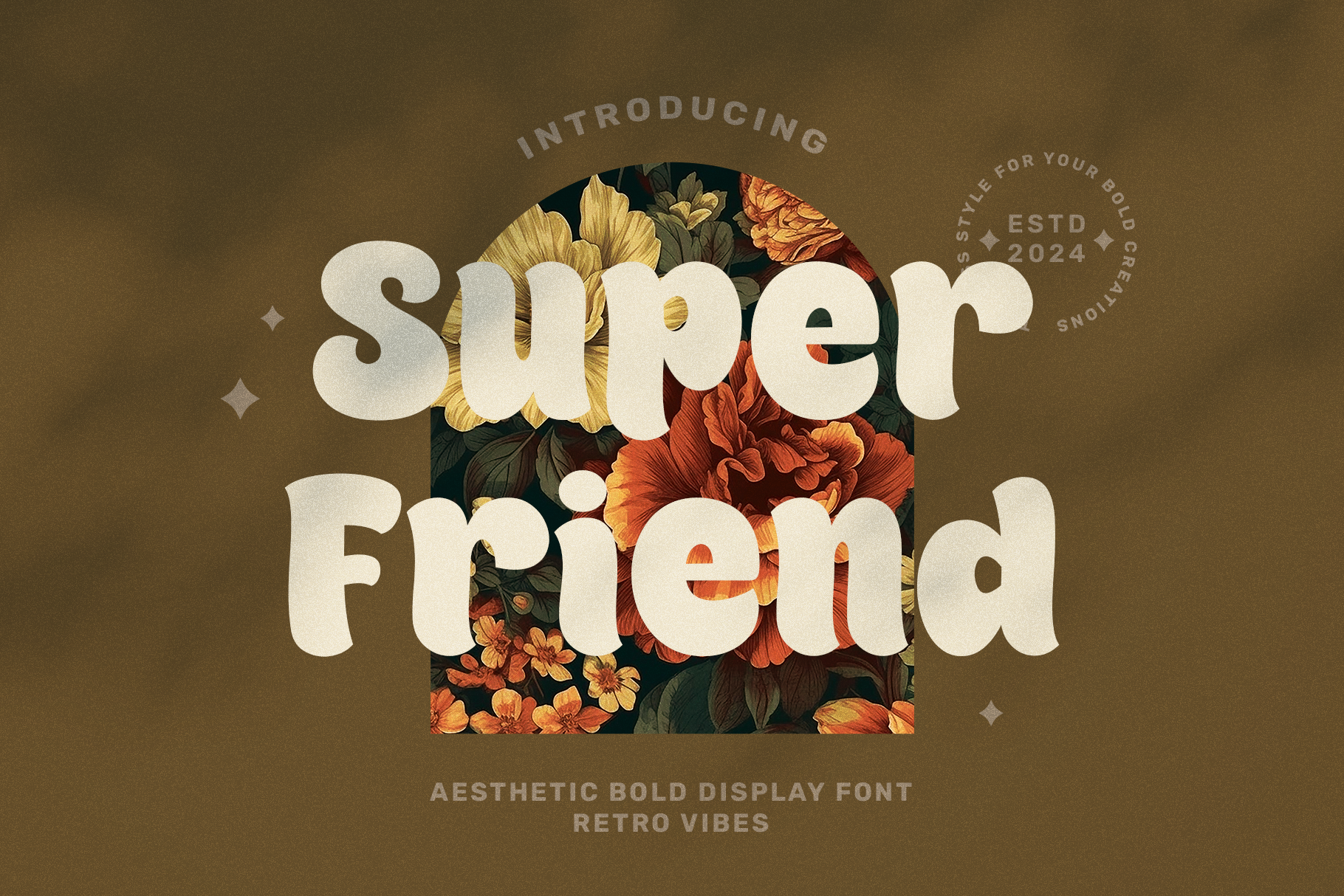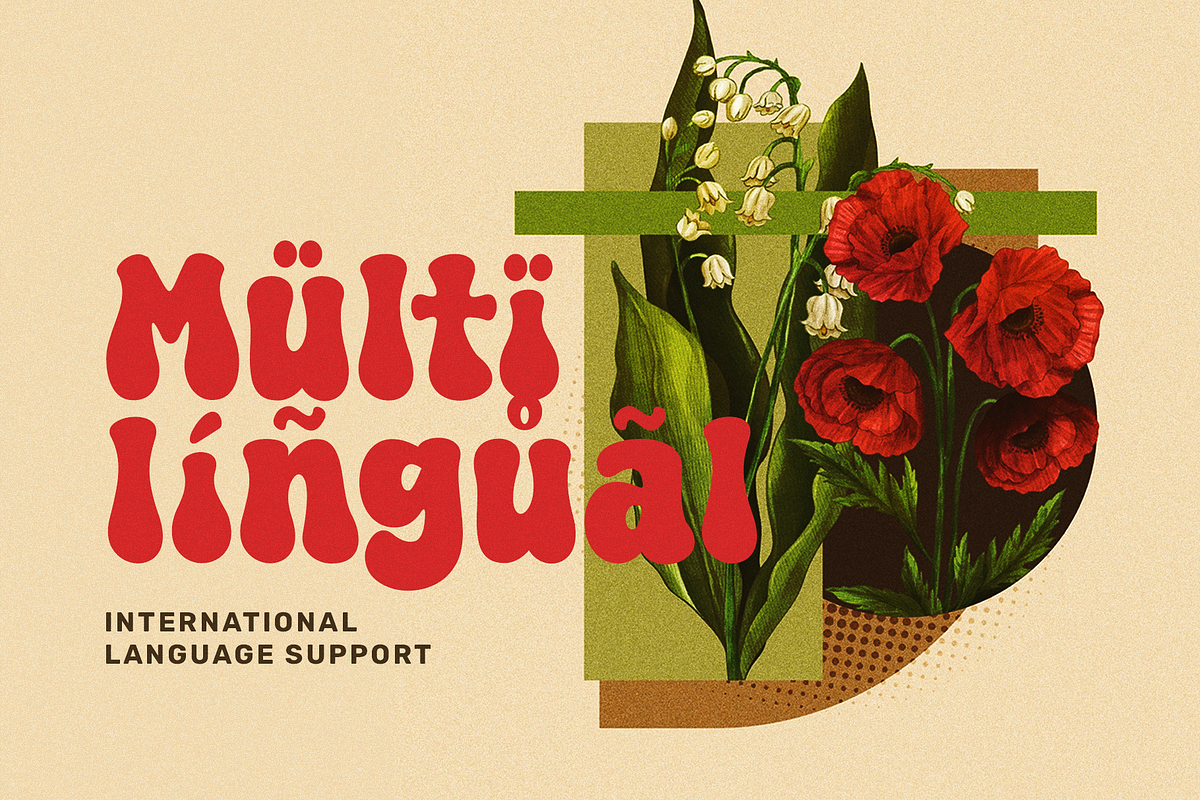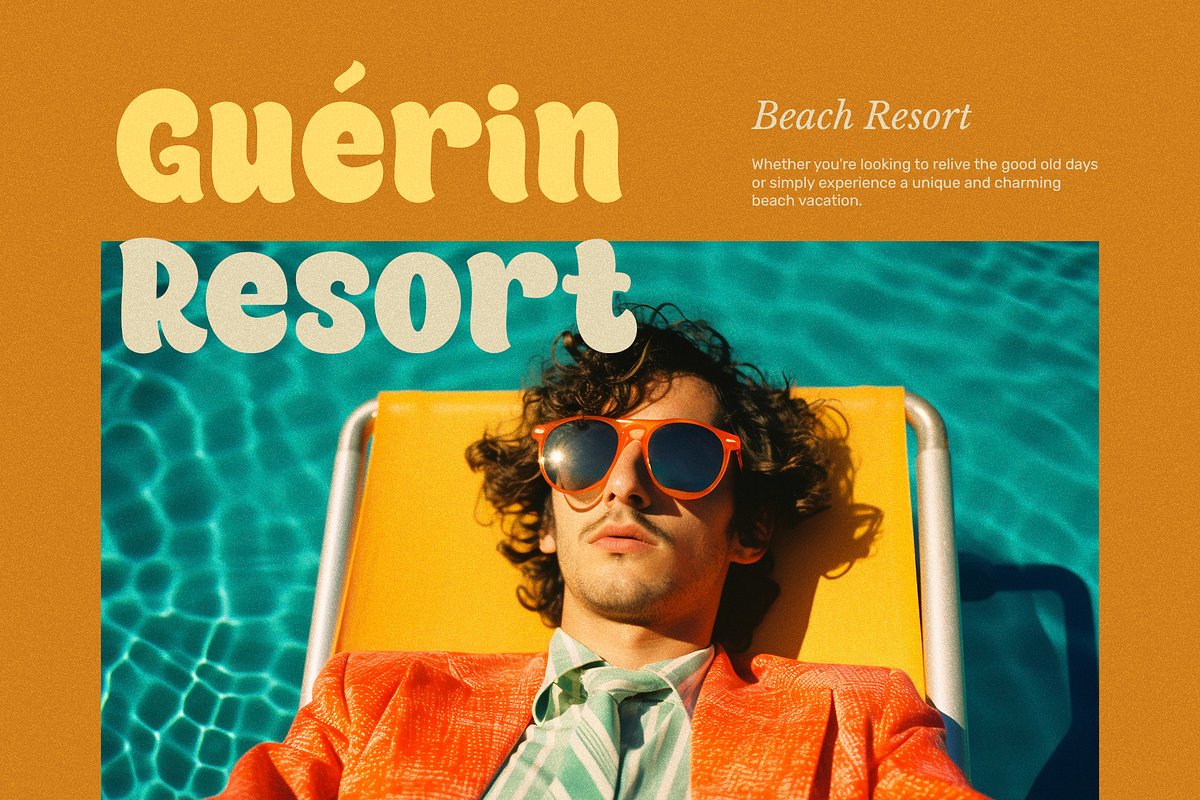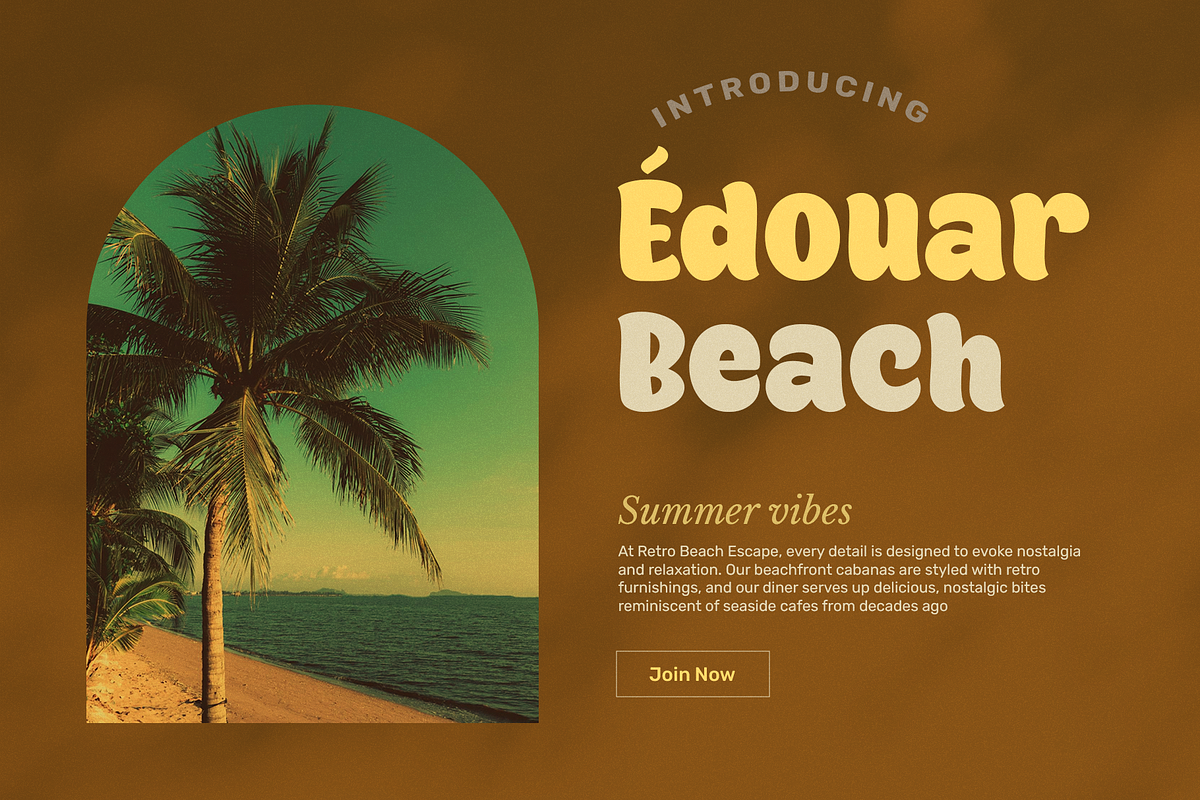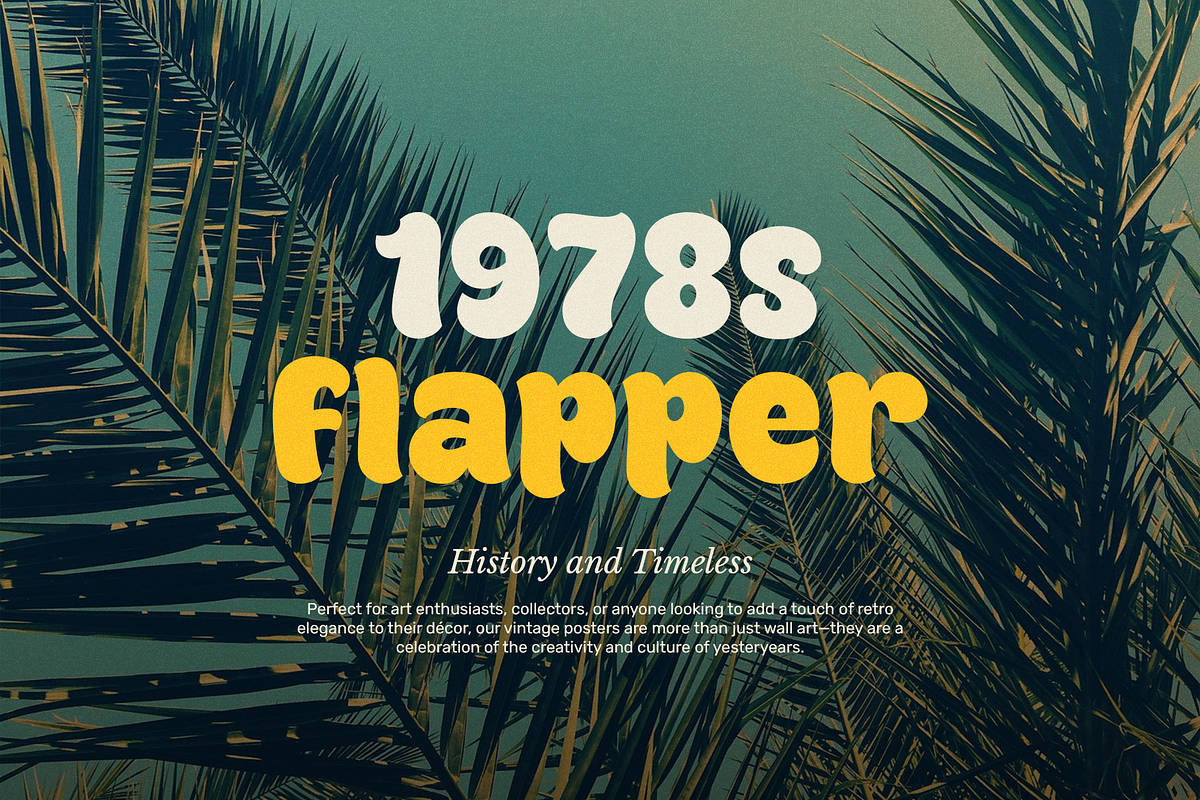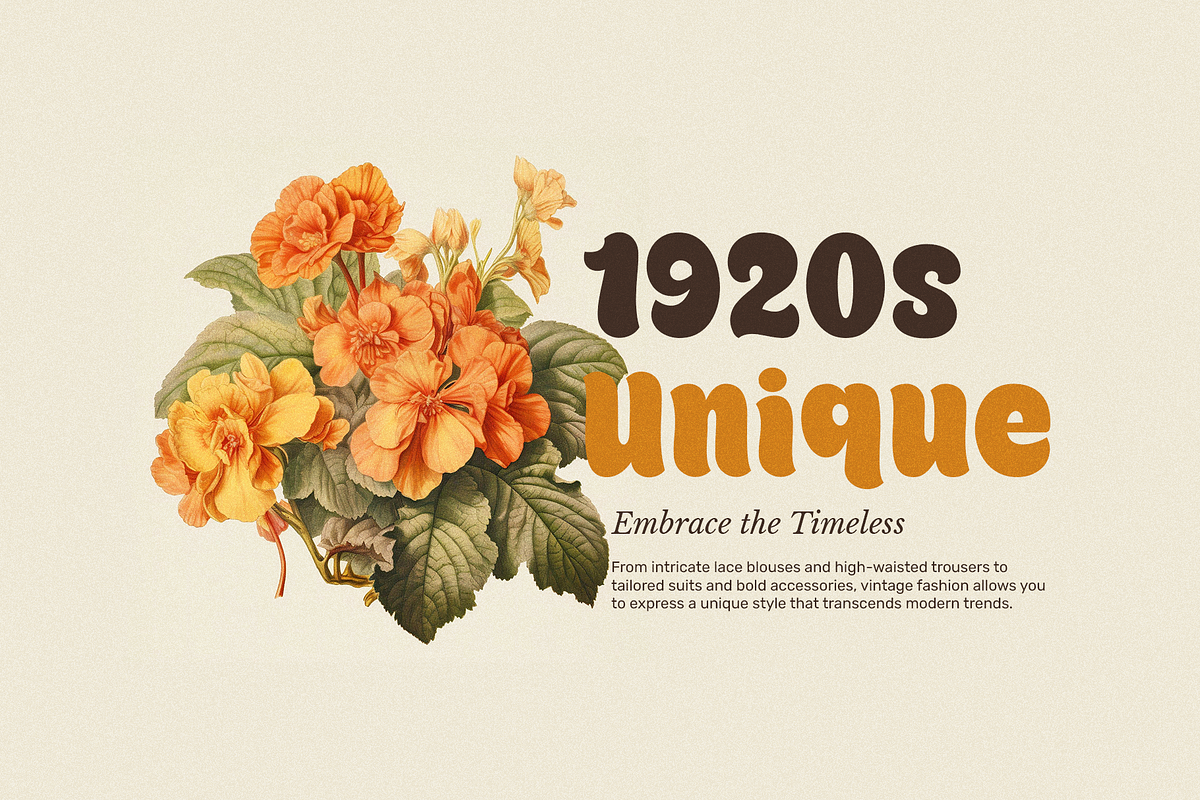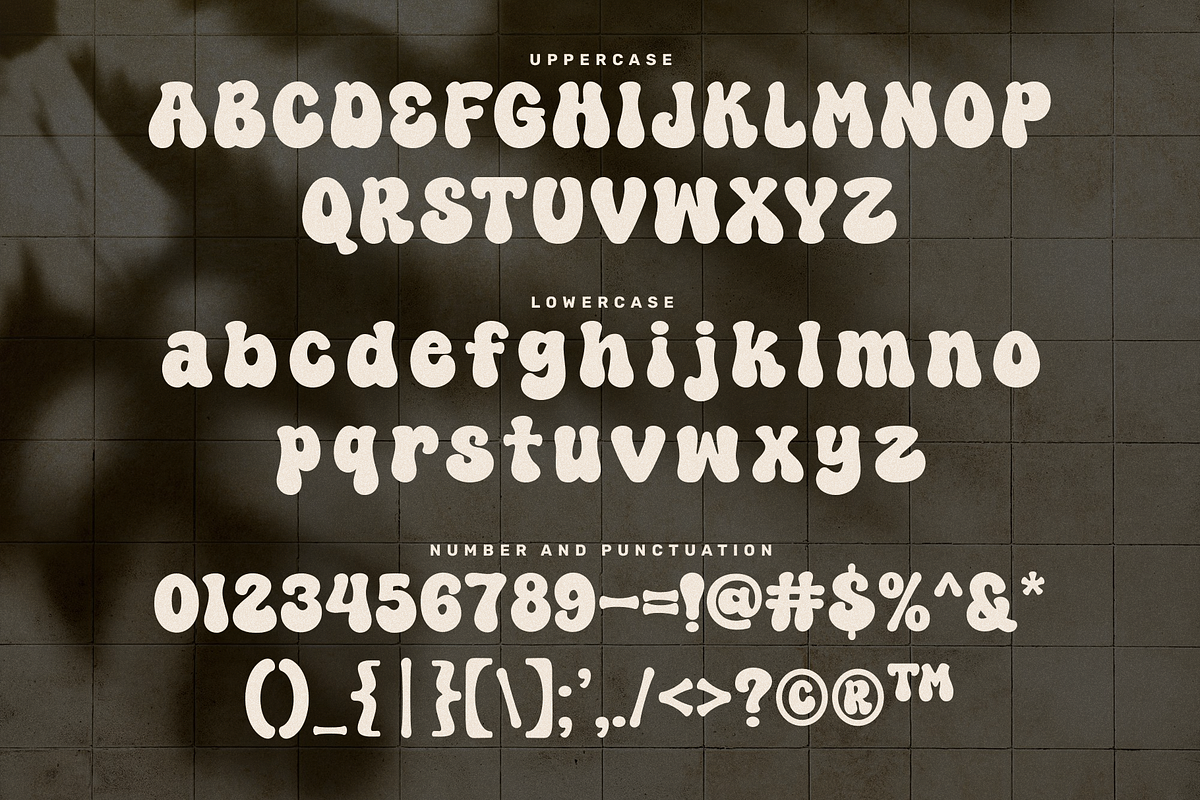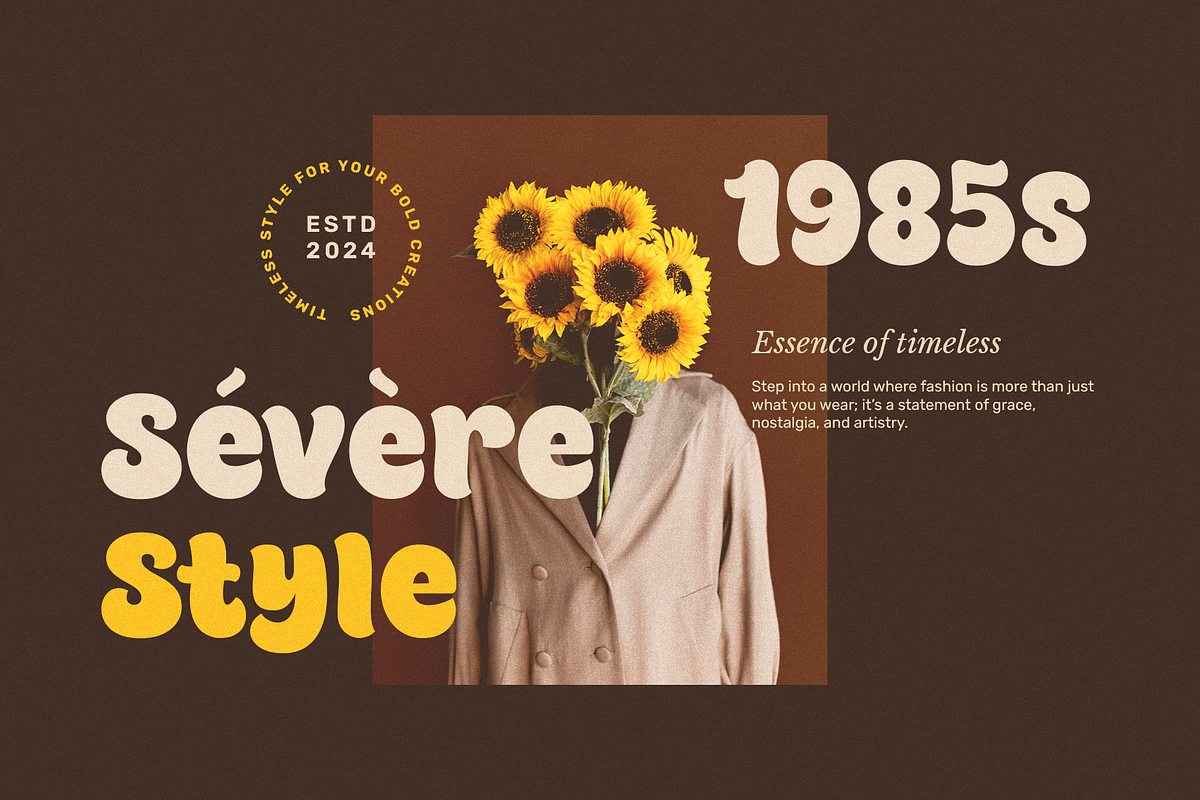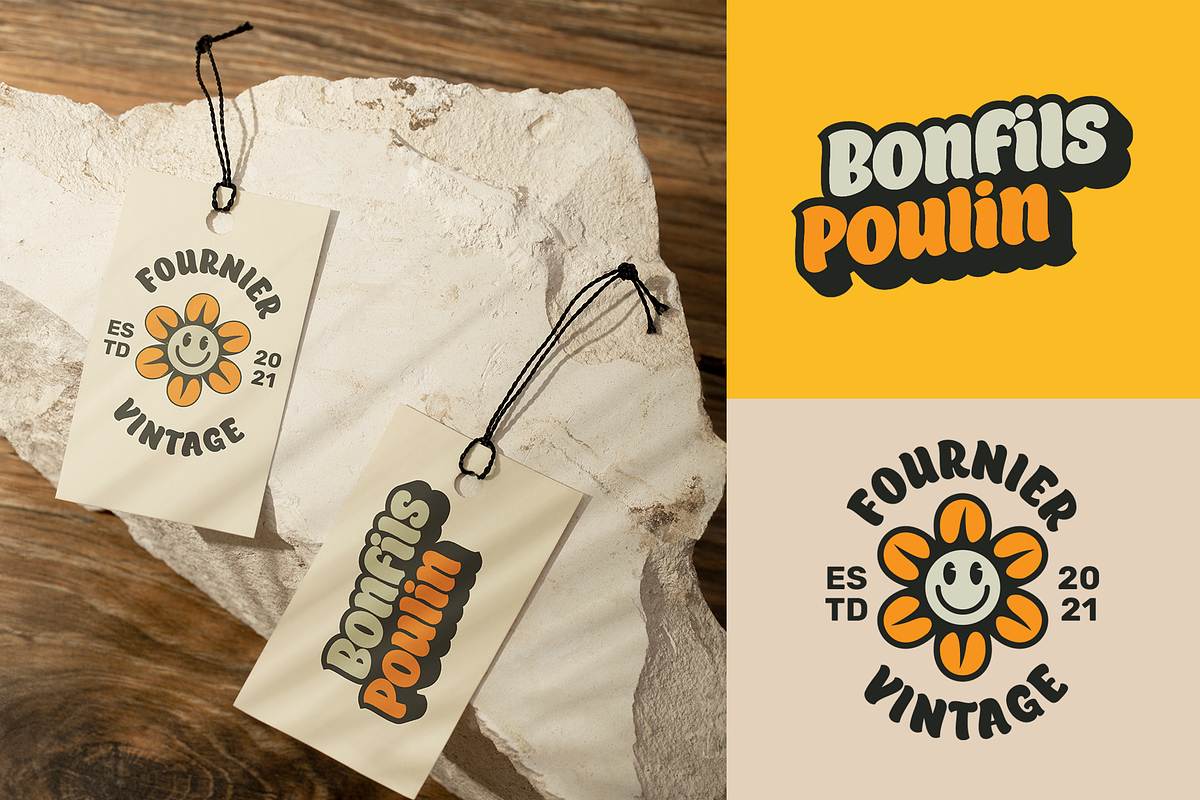
Super Friend - Fancy Bold Font
Super Friend Font: A Bold and Retro Aesthetic
The Super Friend font is a captivating typeface that seamlessly blends boldness with nostalgic retro vibes. Its unique design evokes memories of vintage posters, logos, and classic flyers. The Super Friend font invites users to embark on a journey through time, celebrating the bold and vibrant spirit of yesteryears.